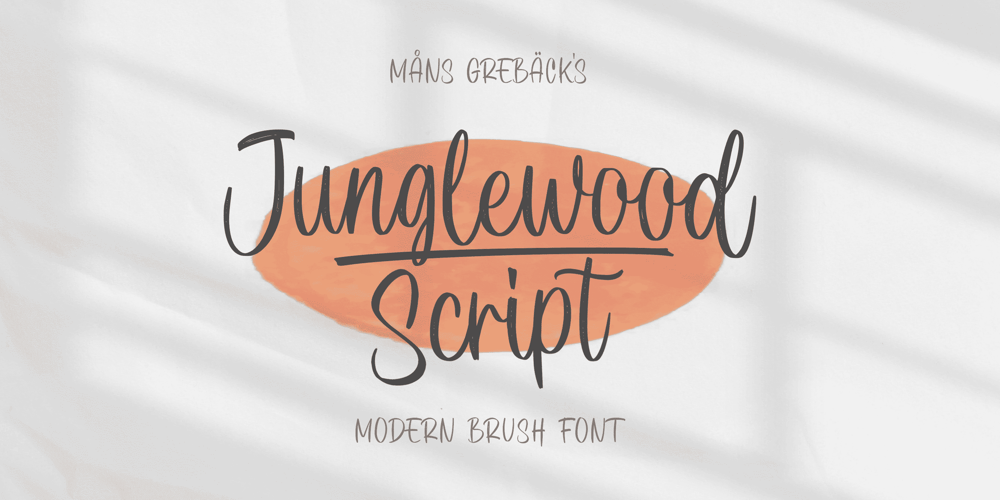
Junglewood Script Font Family was designed by Måns Grebäck and published by Mans Greback. Junglewood Script contains 2 styles and family package options. Junglewood Script is a charming handwriting font that radiates a sense of joy and creativity. Its calligraphic strokes are infused with a modern twist; a celebration of optimistic expression. The flowing style of Junglewood Script is both cute and classy, perfect for conveying messages with a personal, heartfelt touch. Use underscores _ anywhere in a word to make underlines. Example: Tho_rns and Mea__dows The font is built with advanced OpenType functionality and guaranteed top-notch quality, containing stylistic and contextual alternates, ligatures and more automatic and manual features; all to give you full control and customizability. It has extensive lingual support, covering all Latin-based languages, from North Europa to South Africa, from America to South-East Asia. It contains all characters and symbols you’ll ever need, including all punctuation and numbers. Crafted by Mans Greback, Junglewood Script is a testament to his skill in creating fonts that are not only aesthetically pleasing but also emotionally resonant, perfect for conveying a range of positive, uplifting messages.